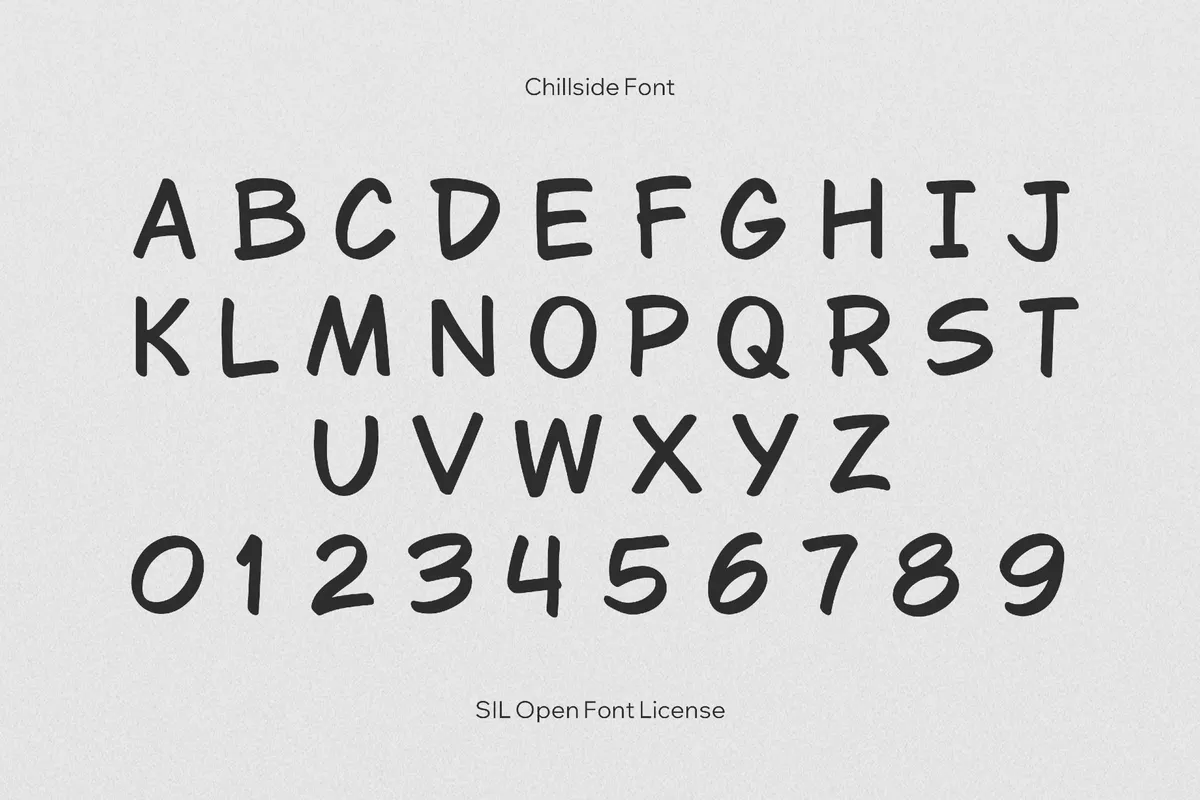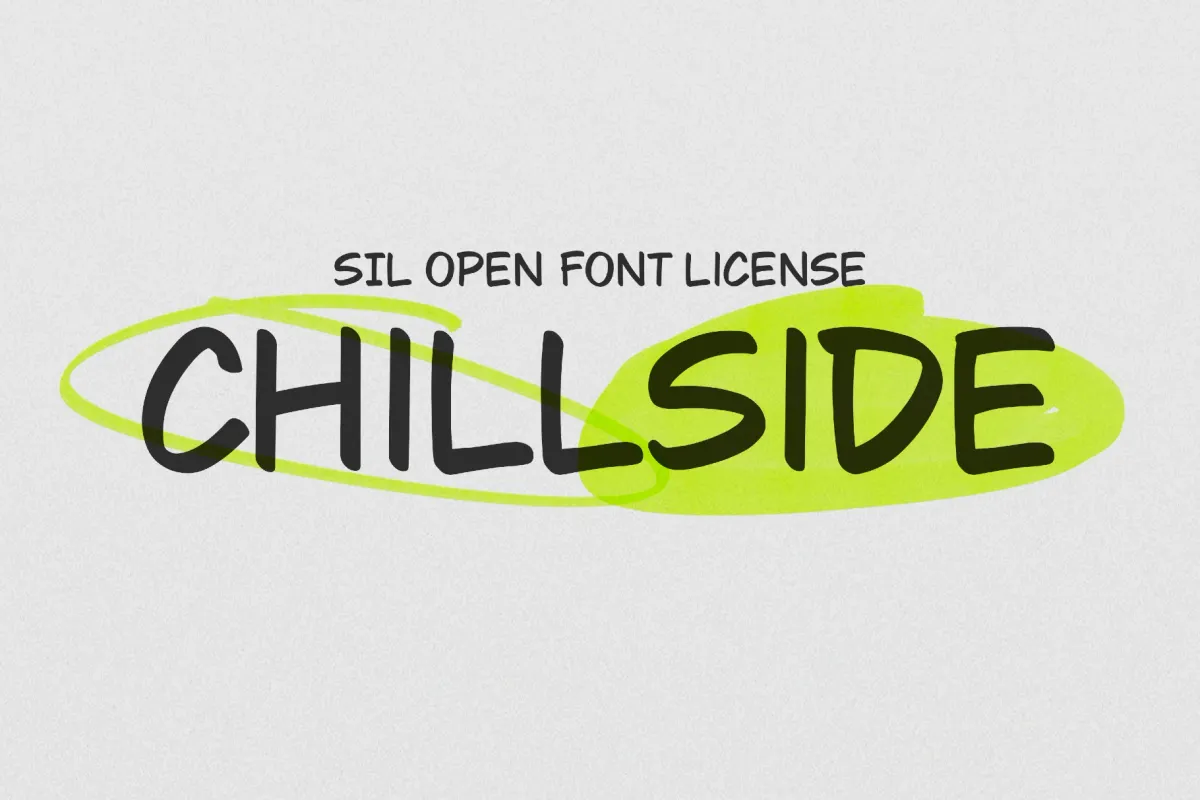
Chillside Font
ChillSide
The loose, comic-style display keeps the mood light and conversational thanks to its hand-drawn looseness. This all-caps font recalls 1990s skateboard graphics and beach stickers, so it fits lifestyle branding, comic panels, webtoon dialogue, indie magazines, posters, packaging callouts, thumbnail text, café menus, social media headlines, event promos, YouTube and Twitch overlays.
- Only uppercase letters.
- Numbers, punctuation.
- International characters with multilingual support across extended Latin and Cyrillic scripts.
- Basic mathematical symbols.
- A small set of dingbats.